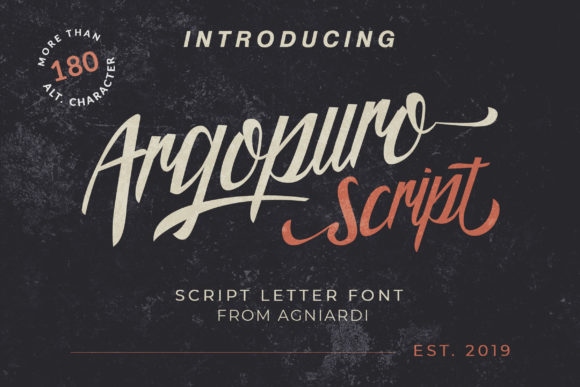
The Designer’s Delight: Unlocking the Power of Argopuro Script Font
Argopuro is a cool script with a stunning feel. It will turn any design idea into a true standout! In this article, we’ll dive into the world of Argopuro, exploring its features, and how to make the most of this beautiful font.
What I Love About Argopuro β¨
- π« Elegant and modern design that’s perfect for high-end branding projects
- β Highly legible, even at small font sizes
- π Beautiful swashes and flourishes that add a touch of sophistication
- π Support for multiple languages, making it a great choice for global brands
Small Quirks or Limitations π€
- β οΈ Some users may find the font a bit too ornate for certain design projects
- π€ Limited availability of certain glyphs and alternates, which may require some creative problem-solving
- Explore the various glyphs, swashes, and stylistic alternates to add some extra flair to your design
The Story Behind Argopuro: A Designerβs Inspiration π
Argopuro was designed by a talented type designer who wanted to create a font that would capture the essence of modern elegance. Inspired by the beauty of traditional calligraphy, the designer poured their heart and soul into crafting a font that would make designers swoon.
| Is Argopuro suitable for body text? | While Argopuro is a beautiful font, it’s best suited for headlines and titles. Its elegant design and swashes may not be ideal for large blocks of body text. |
| Is Argopuro a Unicode font? | Yes, Argopuro is a Unicode font that supports multiple languages and character sets. |